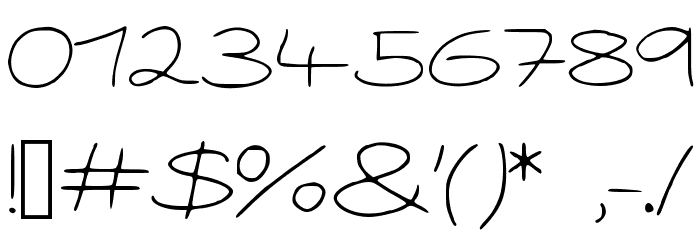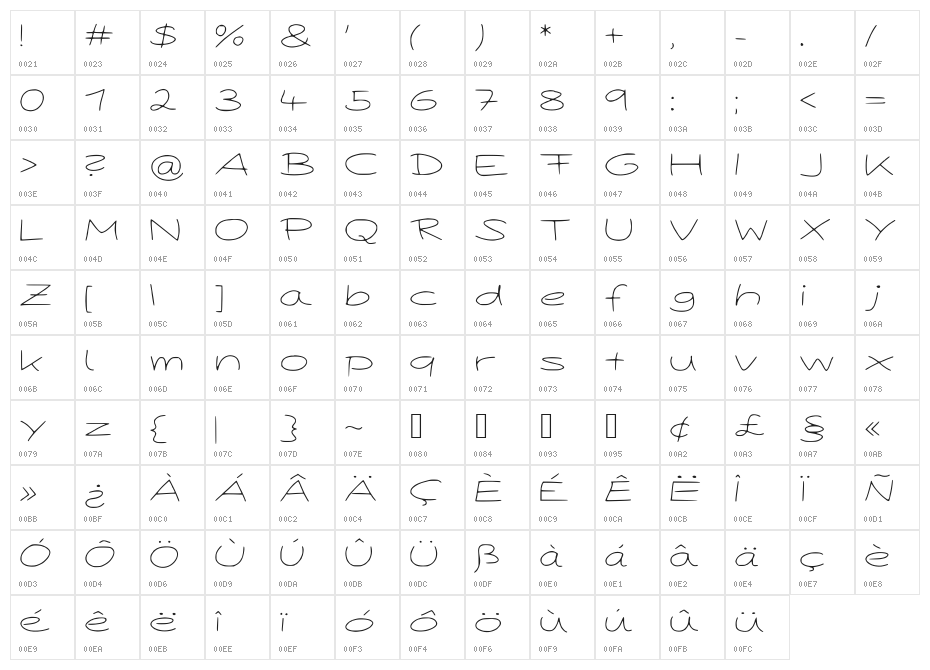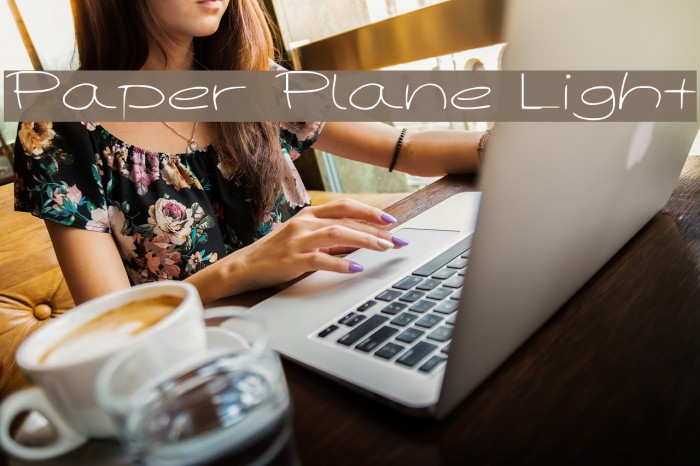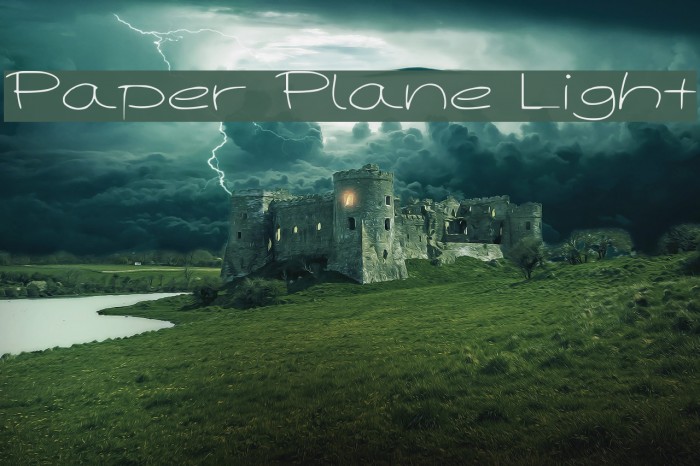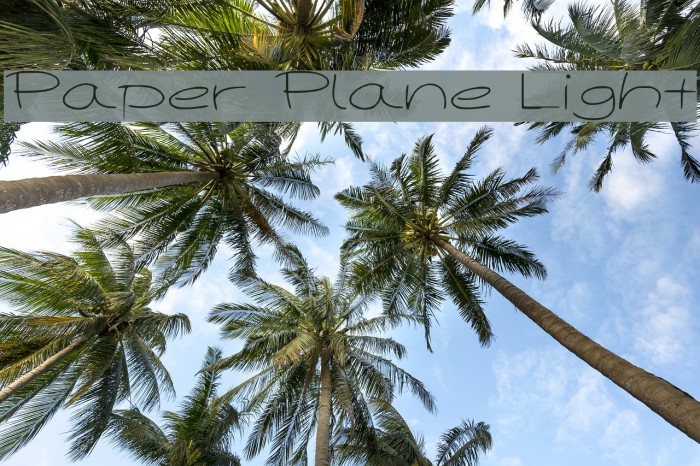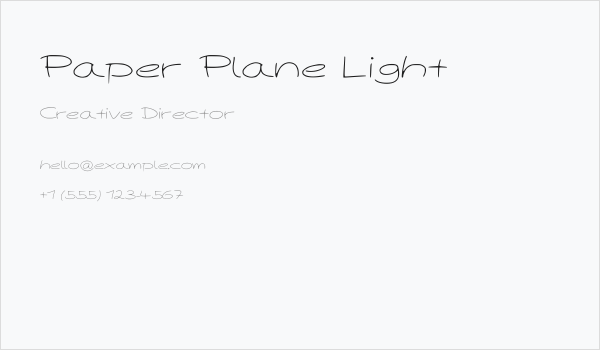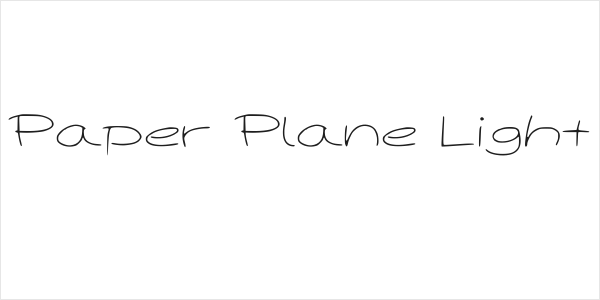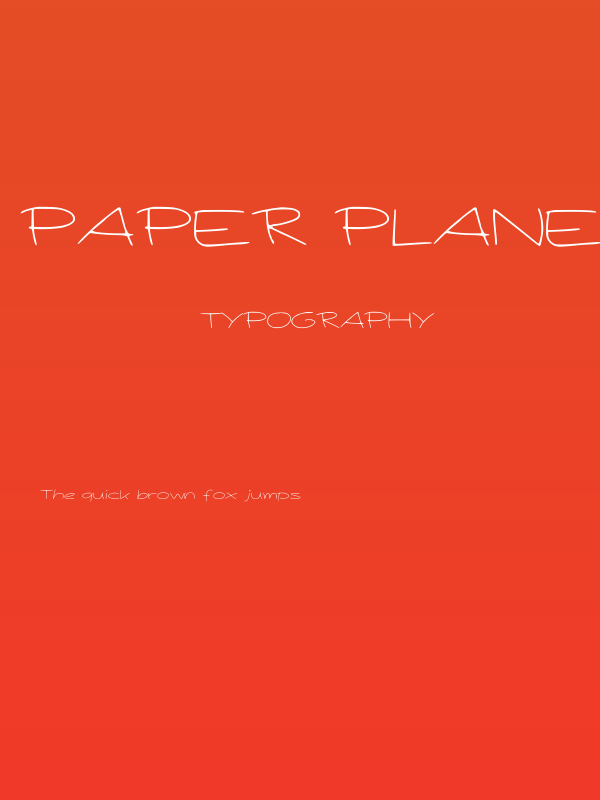
Paper Plane Light Font
Paper Plane Light Description
This font features a playful and whimsical style with a handwritten appearance. The characters are slightly irregular, giving it a casual and informal feel. The strokes are thin and consistent, with a smooth flow that mimics natural handwriting. The uppercase letters maintain a uniform height, while the lowercase letters have a slight slant, adding to the font's dynamic nature. The numbers and special characters are designed to match the overall aesthetic, ensuring a cohesive look across all text elements. This font is ideal for projects that require a personal touch, such as greeting cards, invitations, or creative branding.